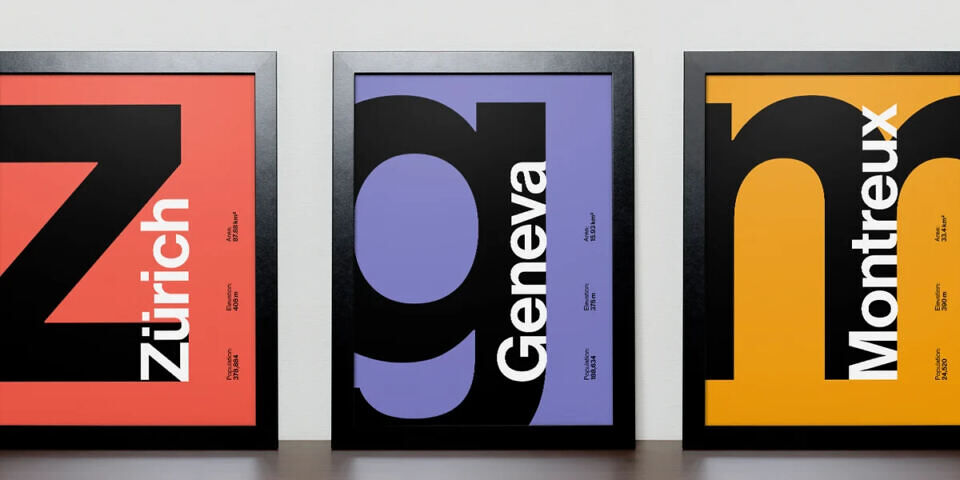
Completed for Richard Turley’s 2010 redesign of Bloomberg Businessweek, this typeface was a restoration project: bringing Miedinger’s original Neue Haas Grotesk back to life with as much fidelity to his original shapes and spacing as possible, rather than trying to rethink Helvetica or improve on current digital versions.
Miedinger’s original Neue Haas Grotesk included a number of interesting alternates, including a cedilla that looked more like a flattened comma (apparently preferred in Switzerland at the time), but the most striking was a straight-legged R, available in each of his handful of original weights by special order only, but now easy to access in digital form.